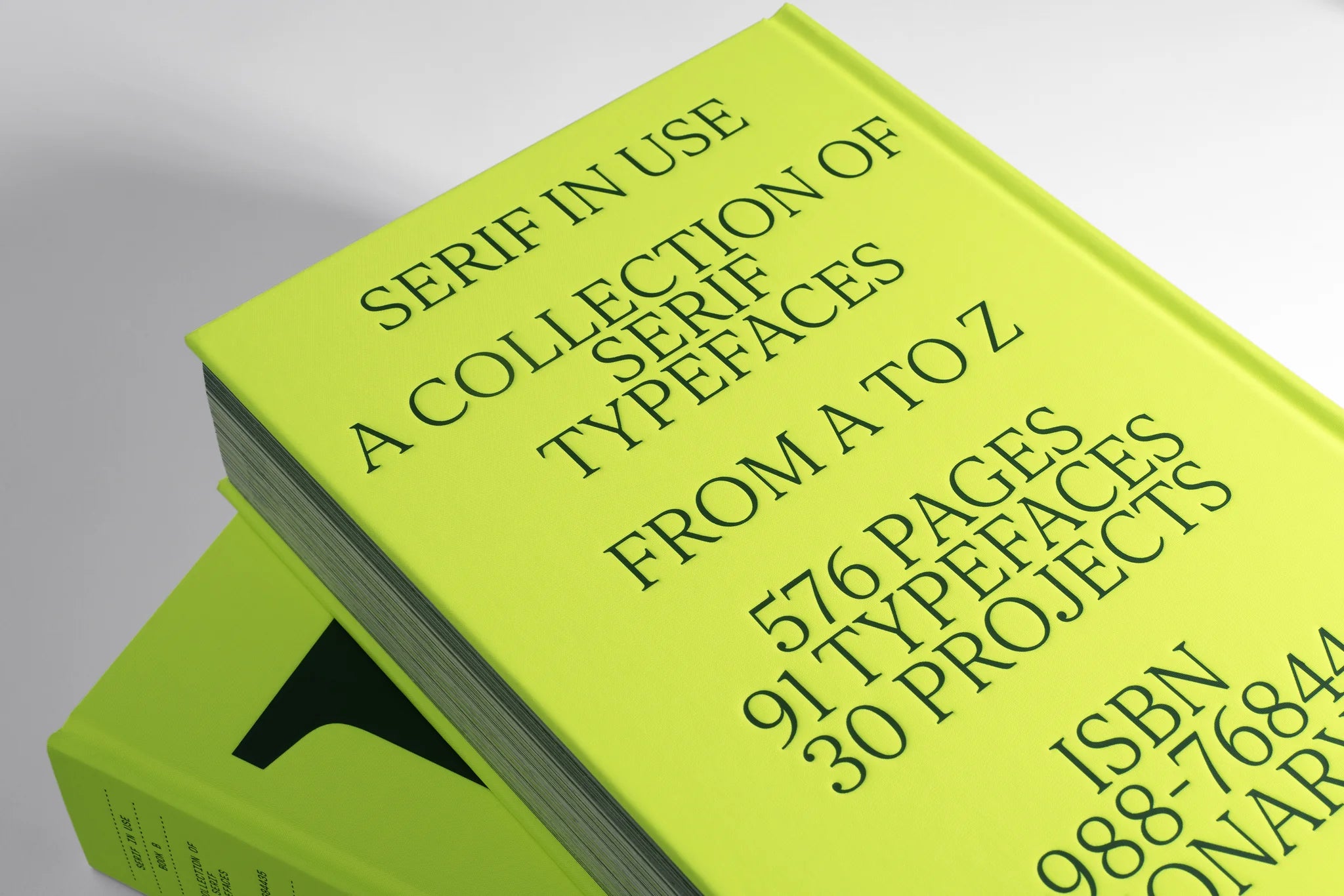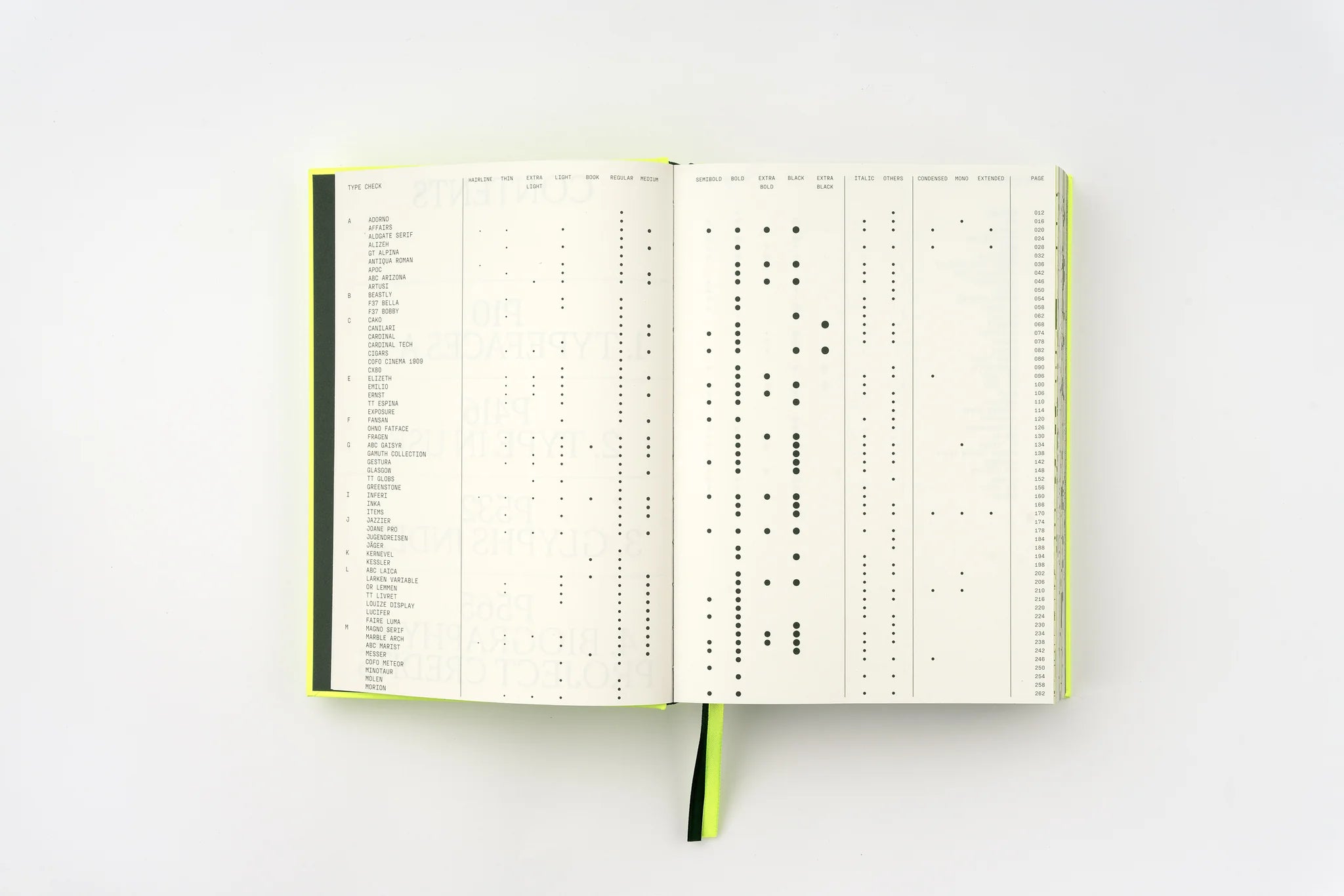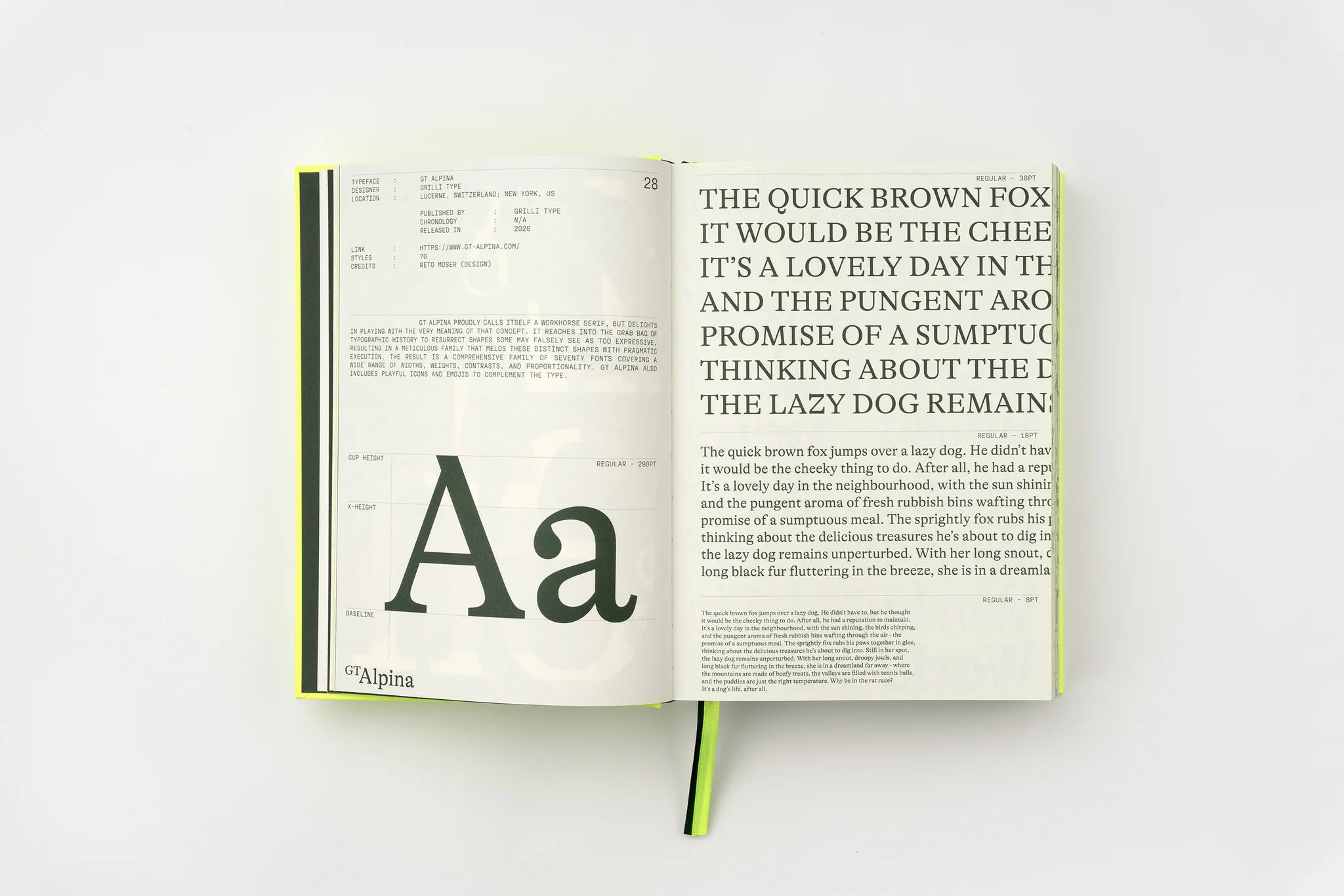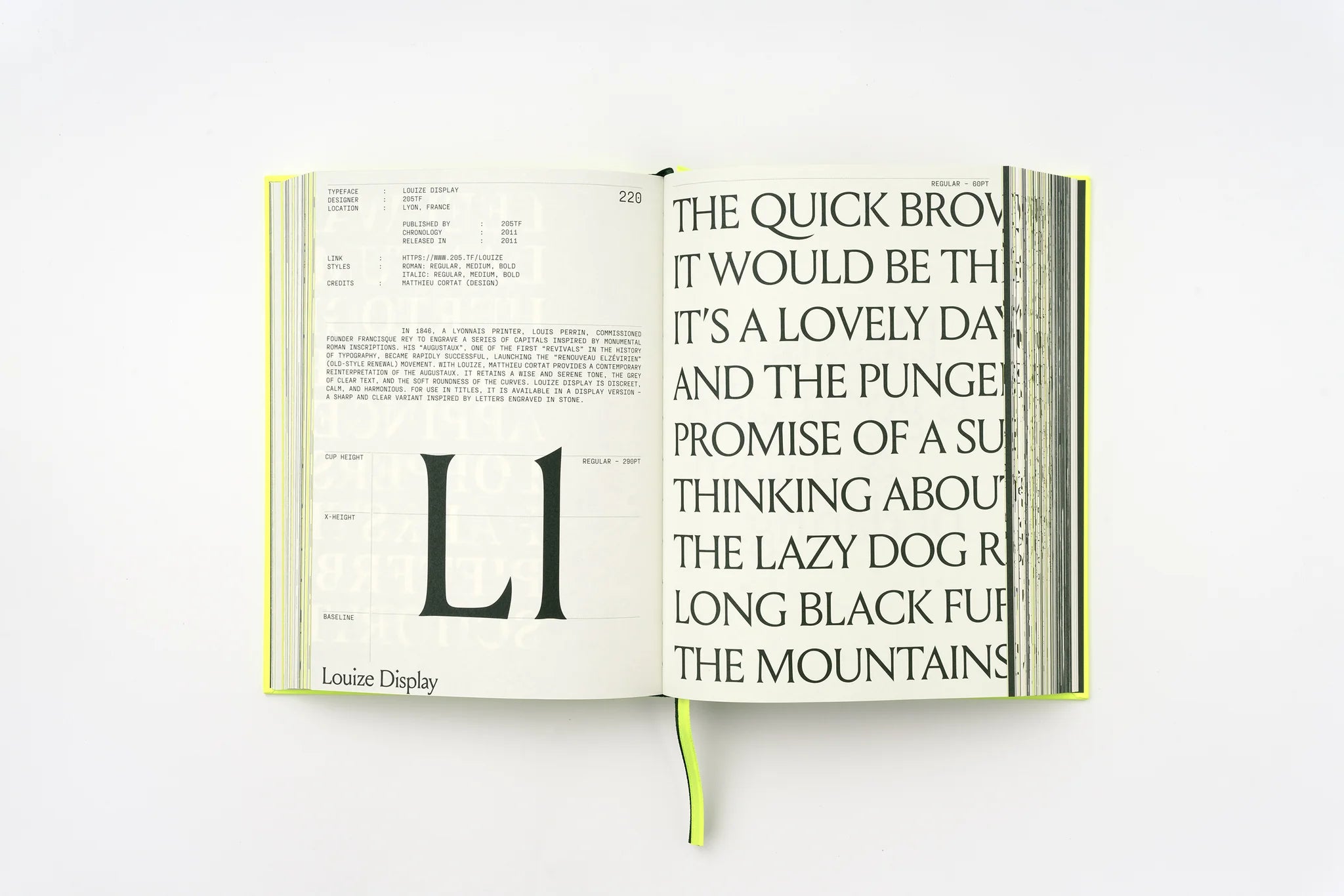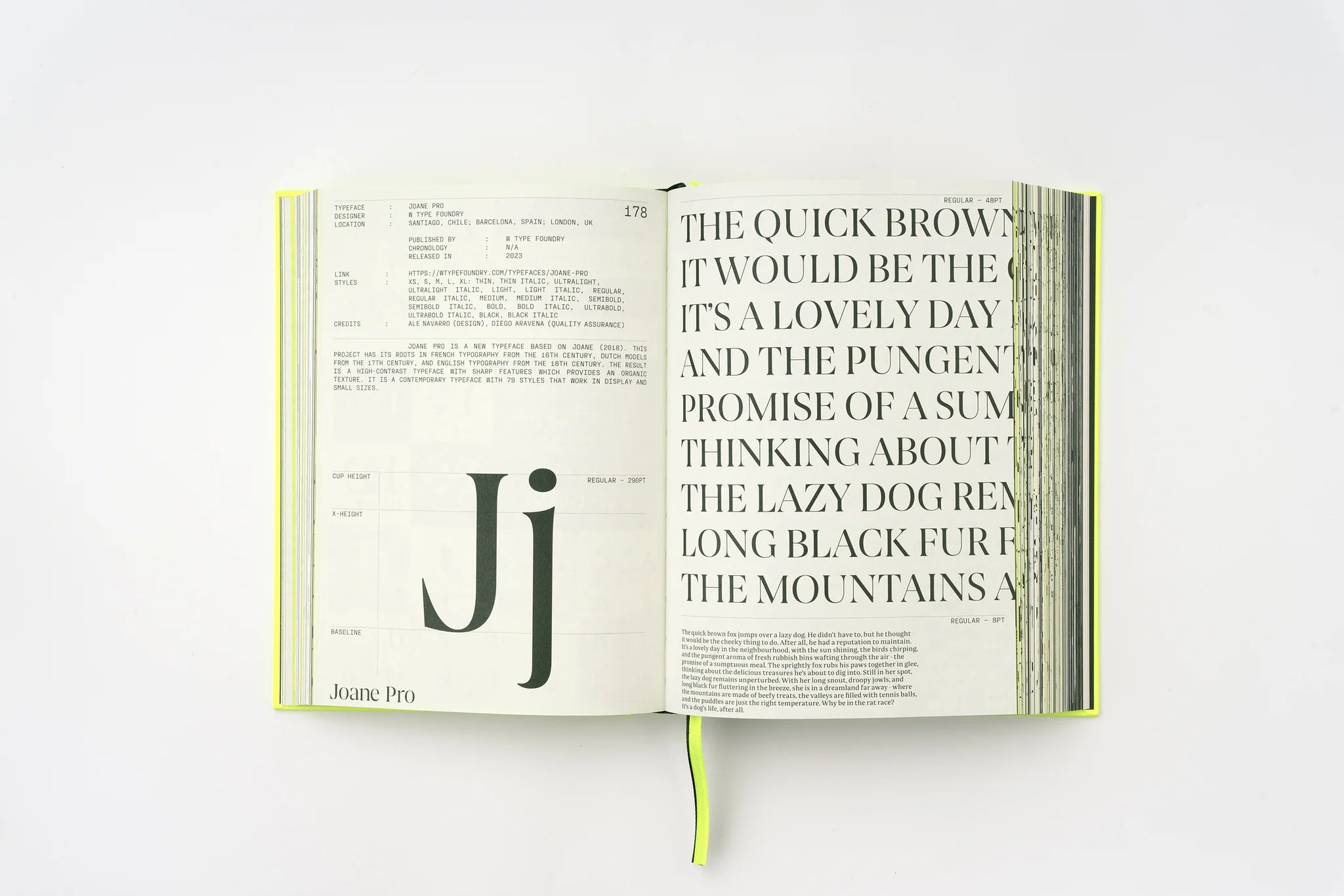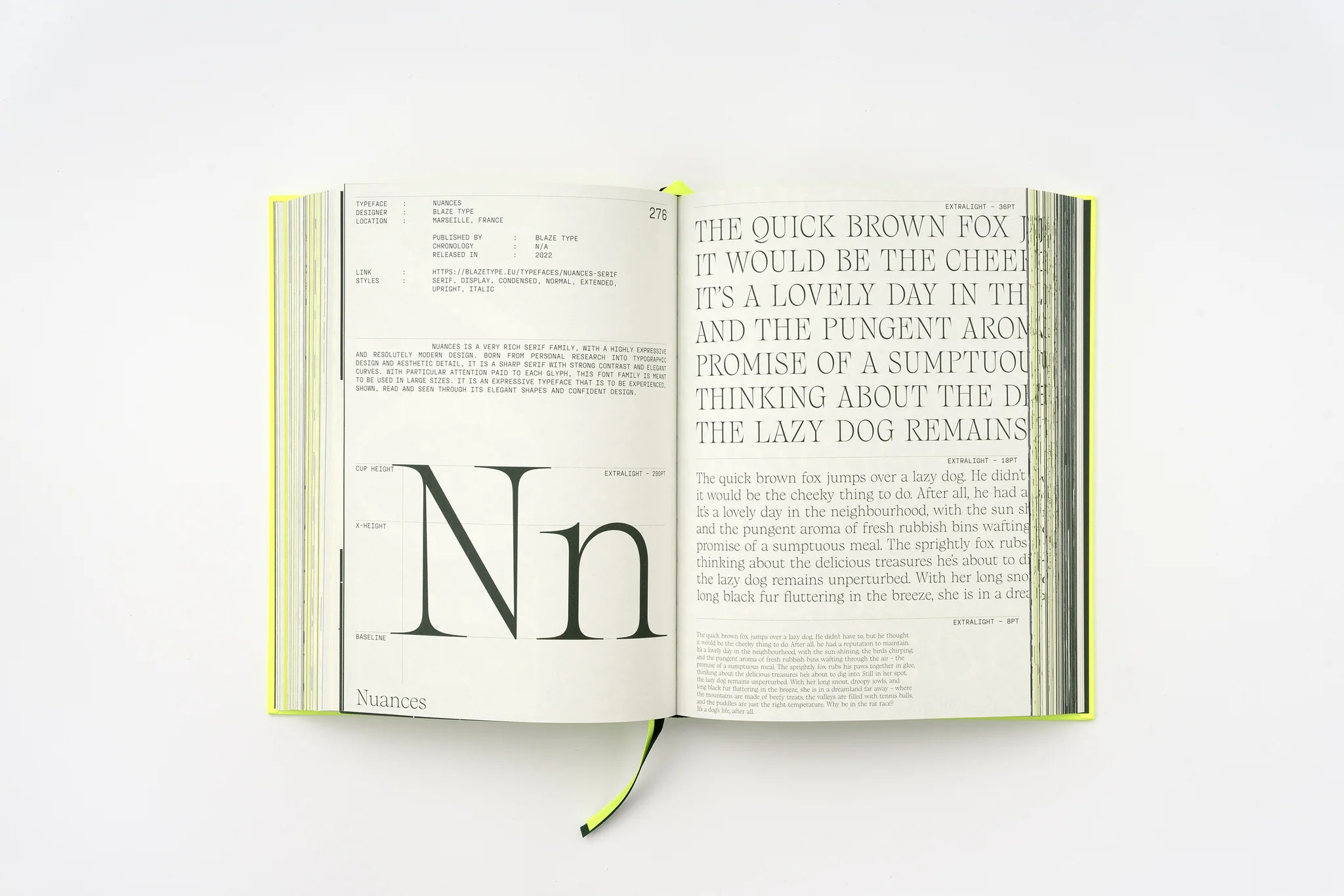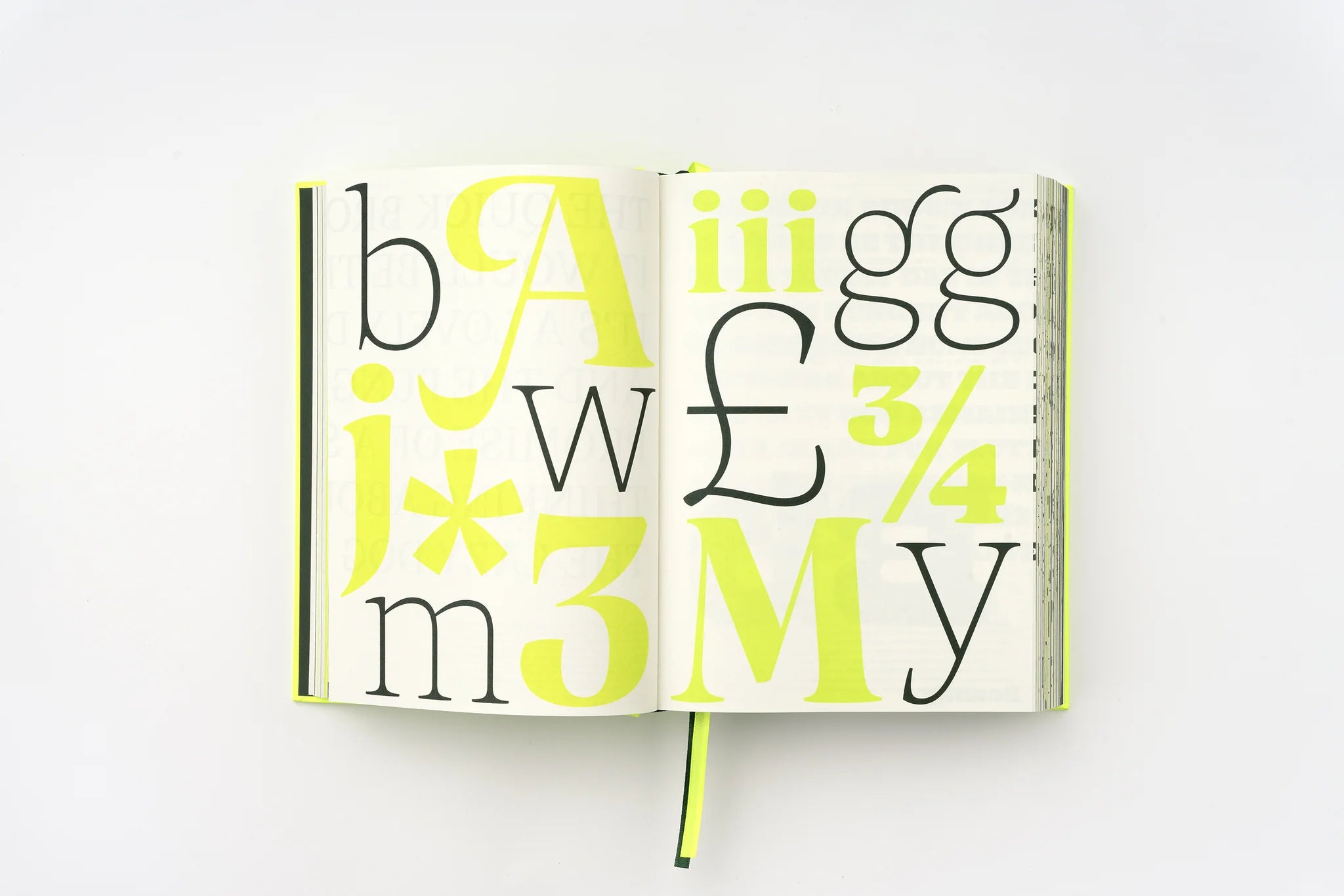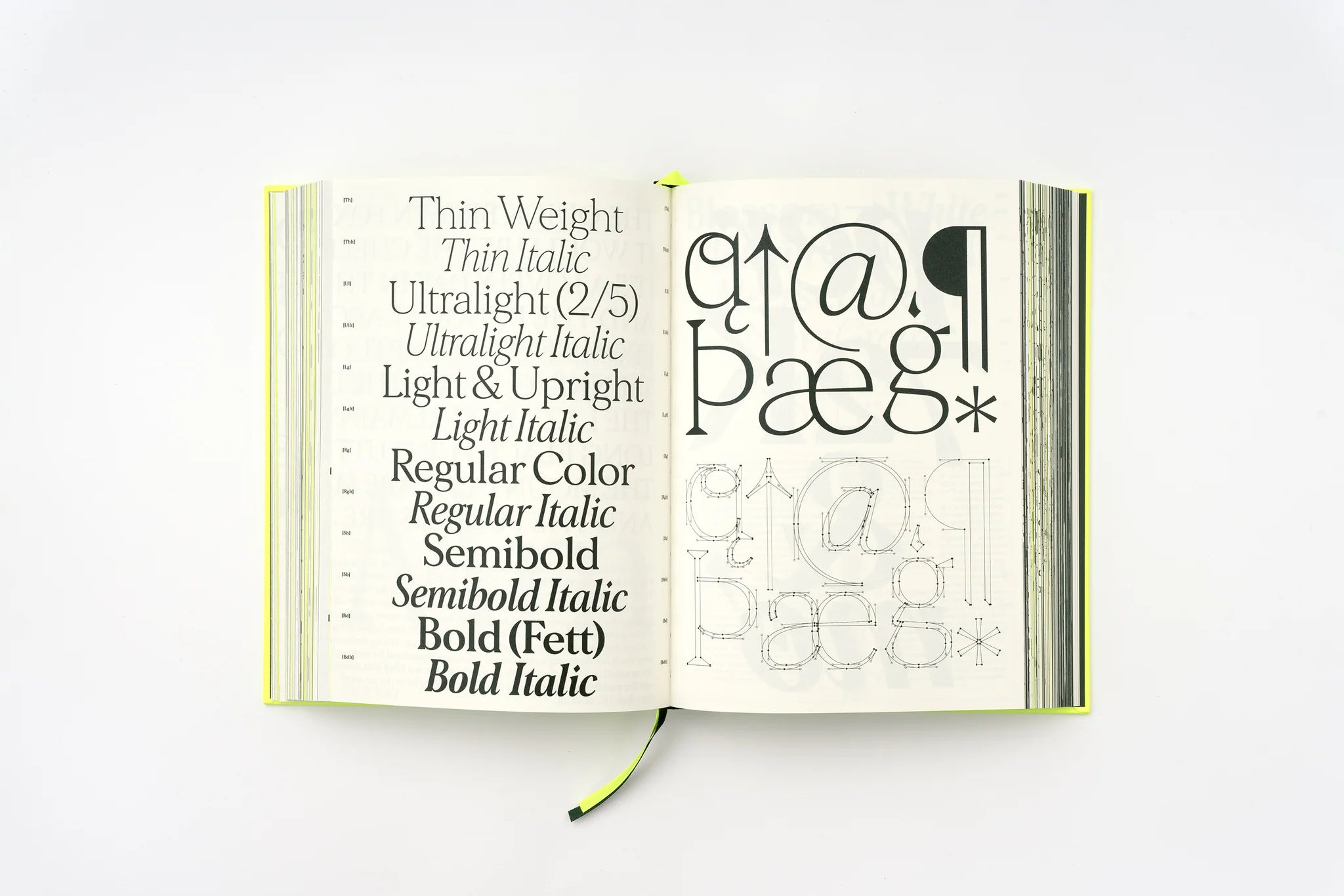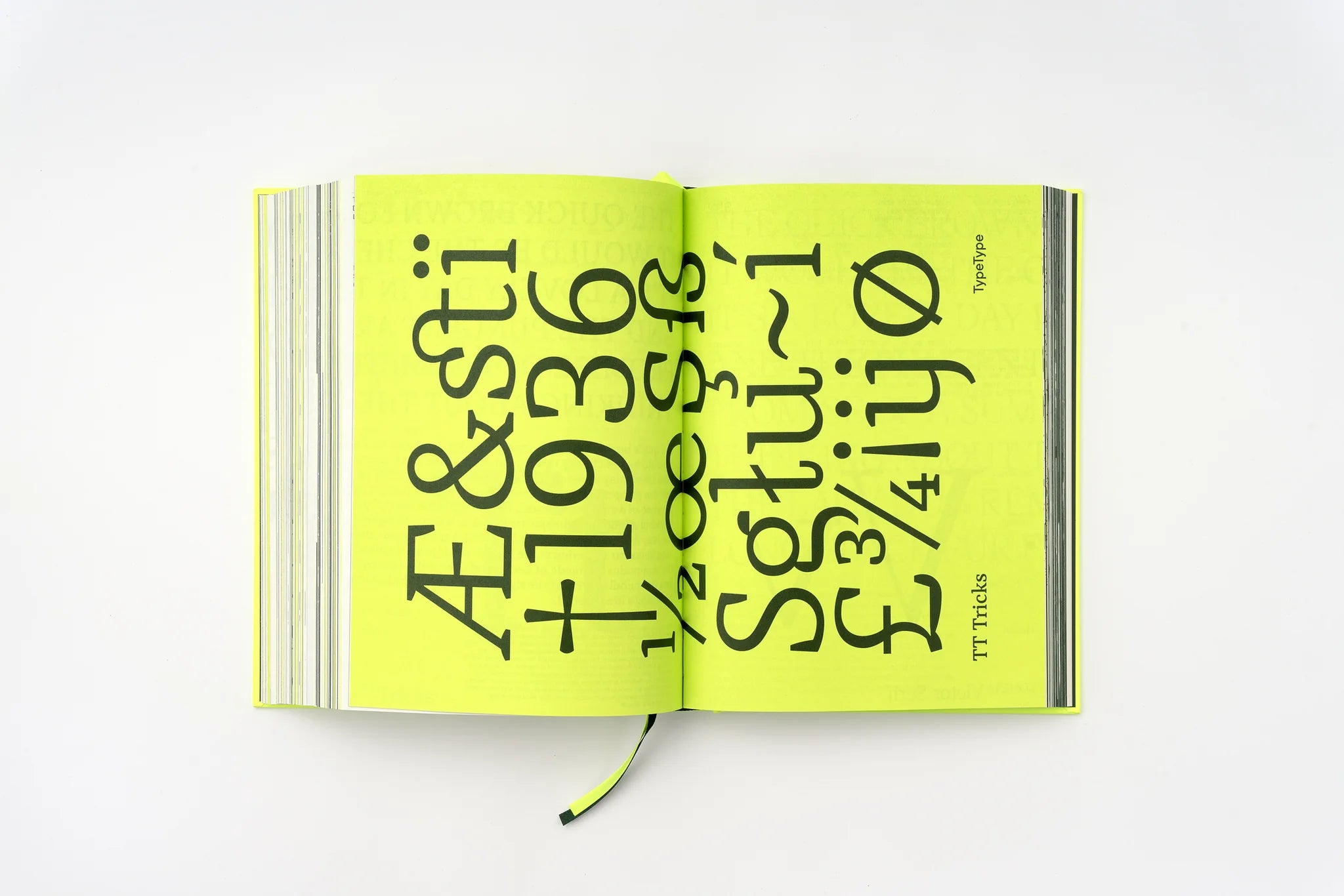
Serif in Use: Creative Typefaces and Their Applications | Victionary
Classic forms, new tricks. Serif in Use shows how serif typefaces continue to evolve, pairing specimens with real projects that reveal how they convey tone, structure and personality.
A substantial, desk-ready reference for editorial systems, identities and any design where type does the talking.